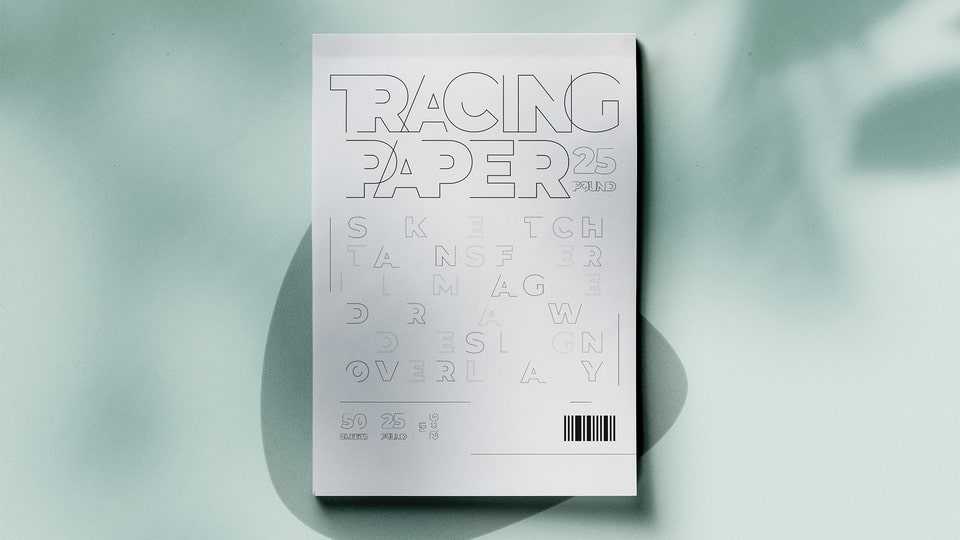
Download Tracing font, a display typeface that embraces the balance between fragility and structural clarity designed with consistently thin strokes and partially open forms.
Designer: Yichen Wang